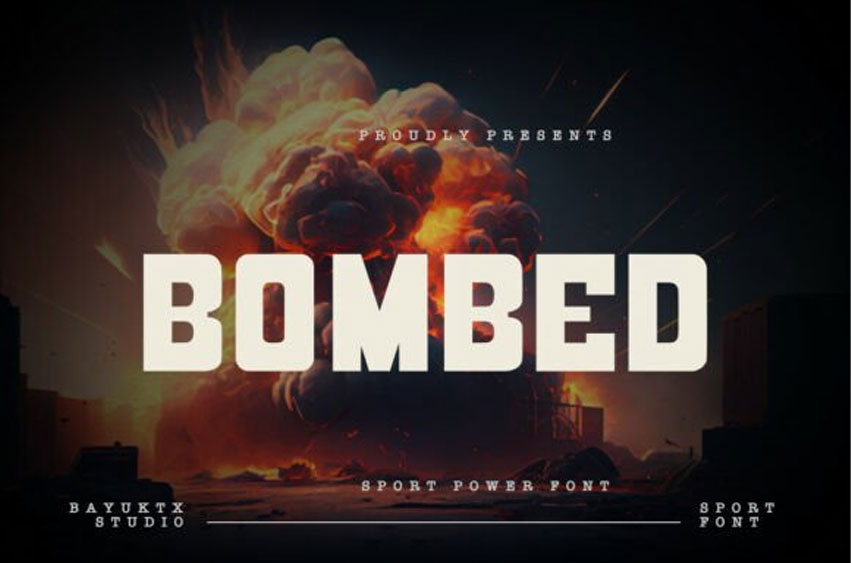
Bombed Font
Bombed Font is an explosive, ultra-bold, all-caps display font built to convey extreme power, energy, and high impact.
Characterized by its massive, condensed letterforms and solid, unrelenting presence, this font is designed to be loud and uncompromising. Its unique strength lies in its ability to dominate a layout, making it an excellent choice for titles and headlines where immediate visual aggression is key.
Bombed is the essential “sport power” font, perfect for athletic apparel branding, gym and fitness advertising, video game titles, extreme event promotion, movie posters, or any design needing an immediate injection of dynamic, forceful energy. It delivers a clean, modern, yet utterly dominant aesthetic.
Suitable For:
* Sport & Fitness Branding
* Esport Logos & Team Identity
* Gym Posters & Merchandise Design
* Motivational Quotes & Banners
* Action Titles & Dynamic Typography
With Bombed Sport Power Font, every design hits hard — fueled by strength, speed, and confidence.